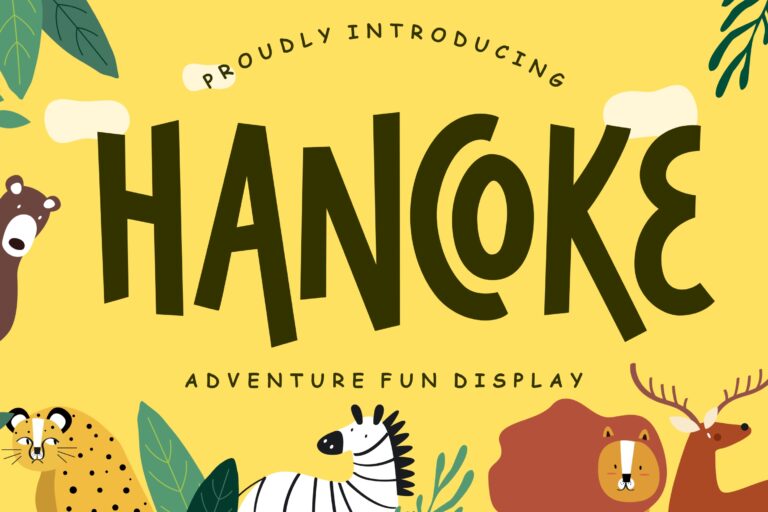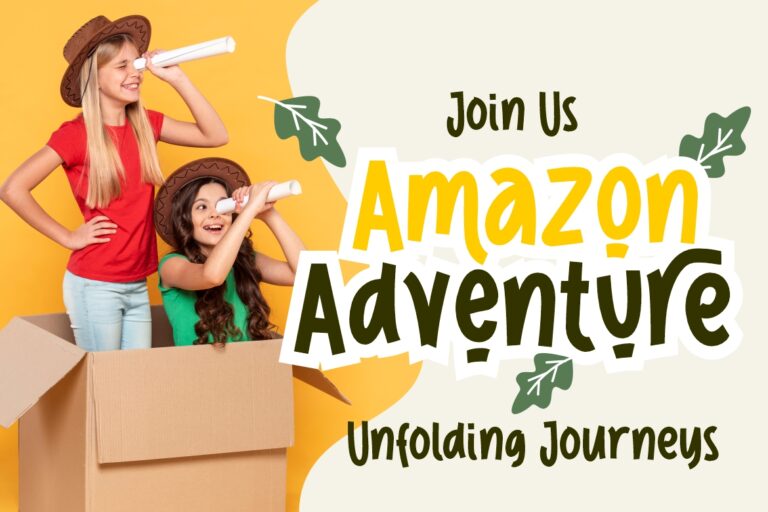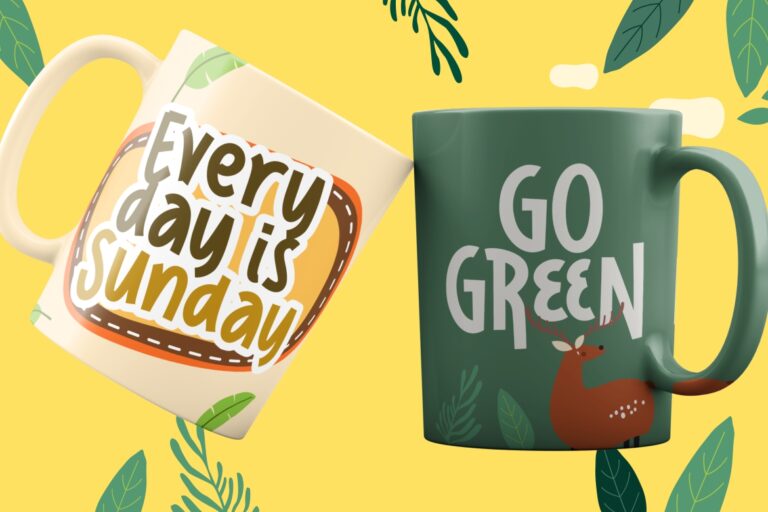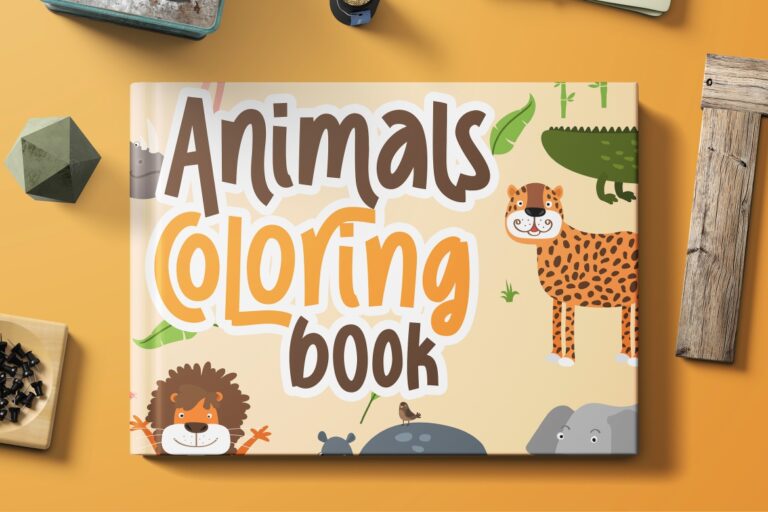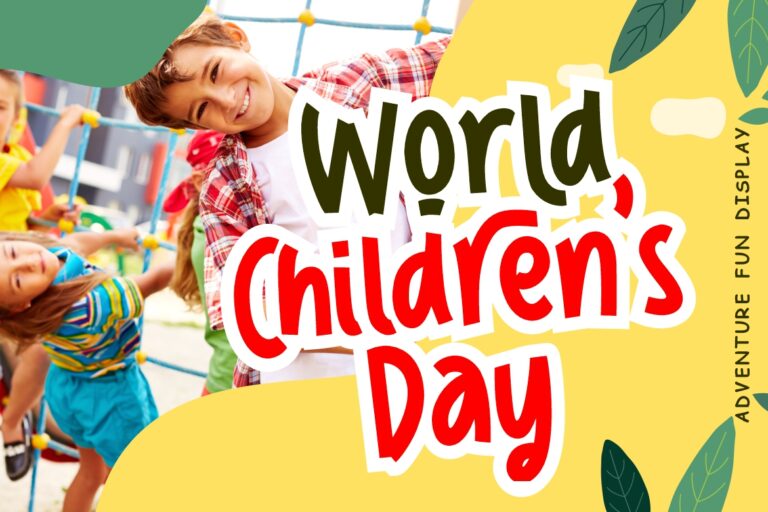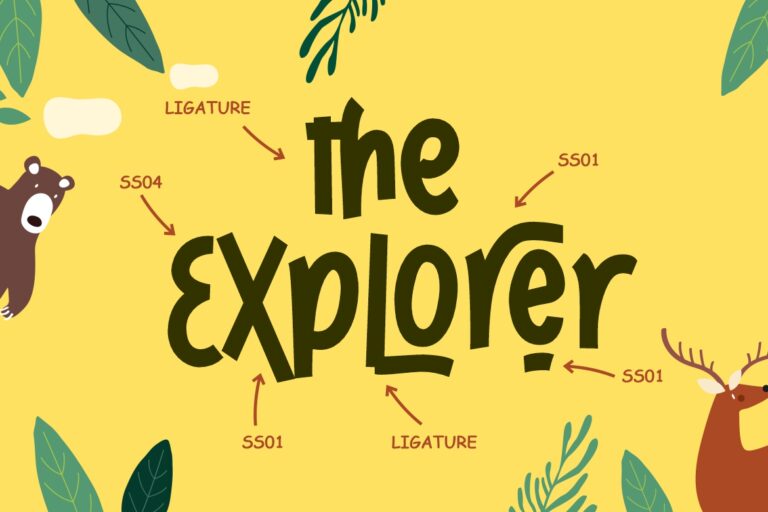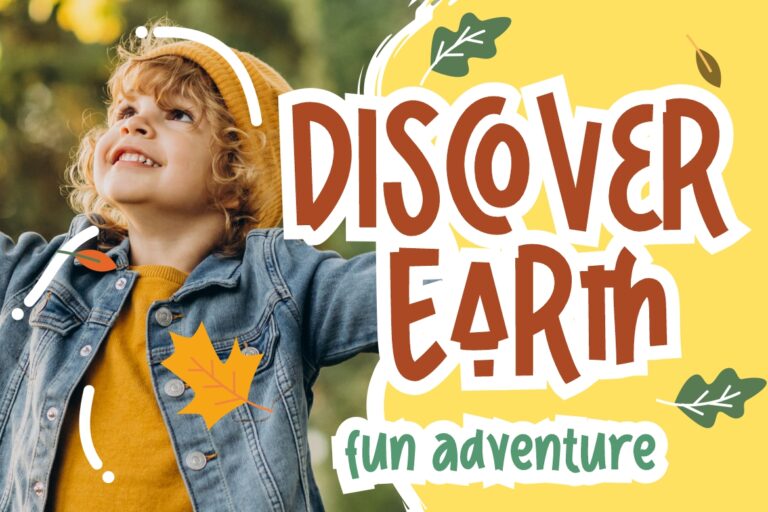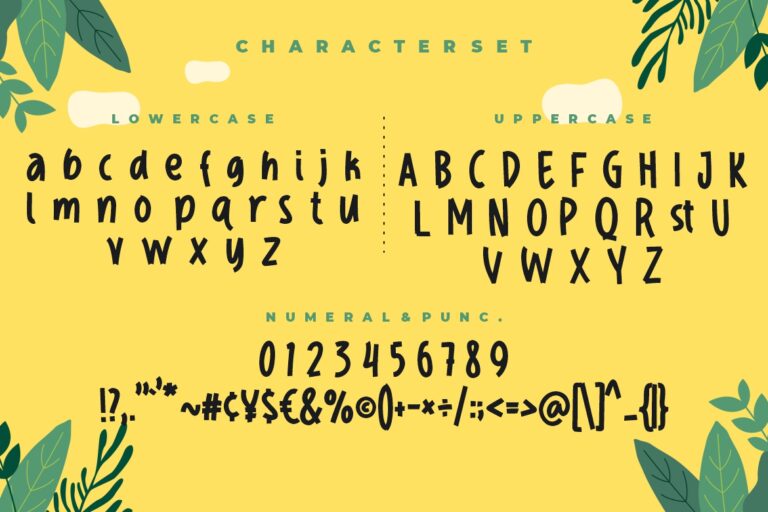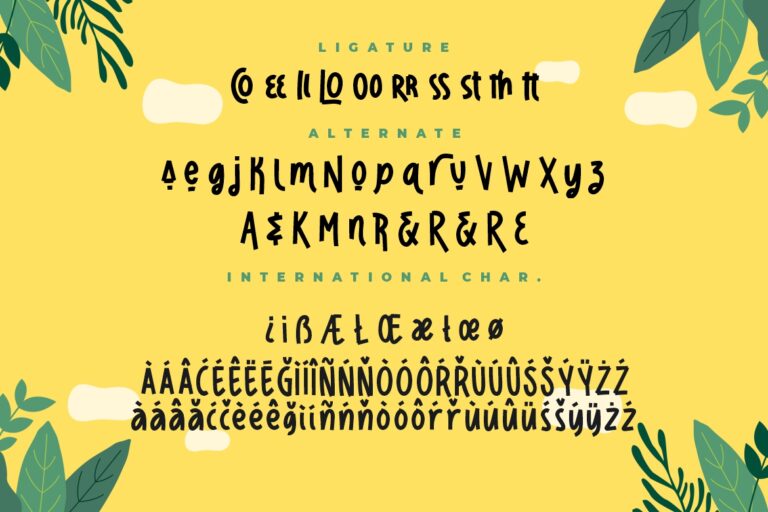
Hancoke Adventure Fun Display
Hancoke is adventure fun display font perfect for children and kindergarten occasion and event poster.
Hancoke is perfect for branding projects, logo, wedding designs, social media posts, advertisements, product packaging, product designs, label, photography, watermark, invitation, stationery and any projects that need handwriting taste.